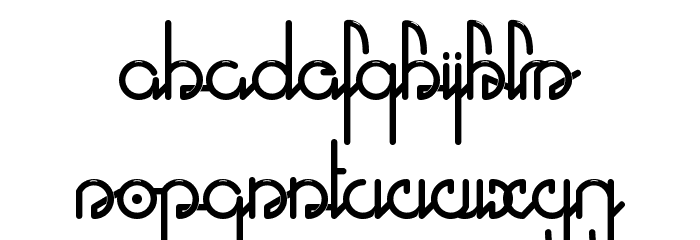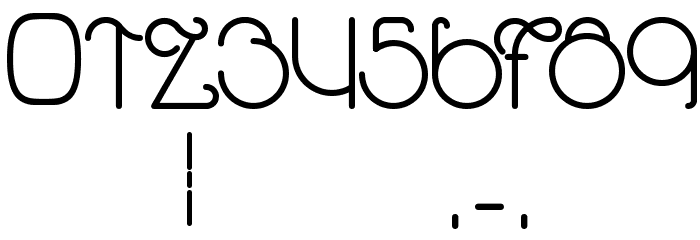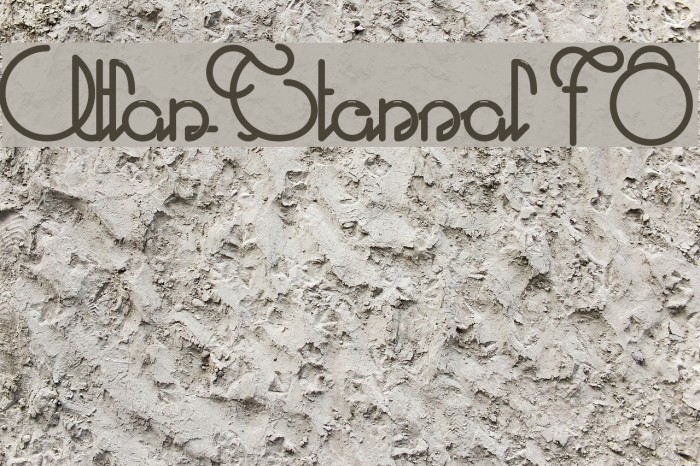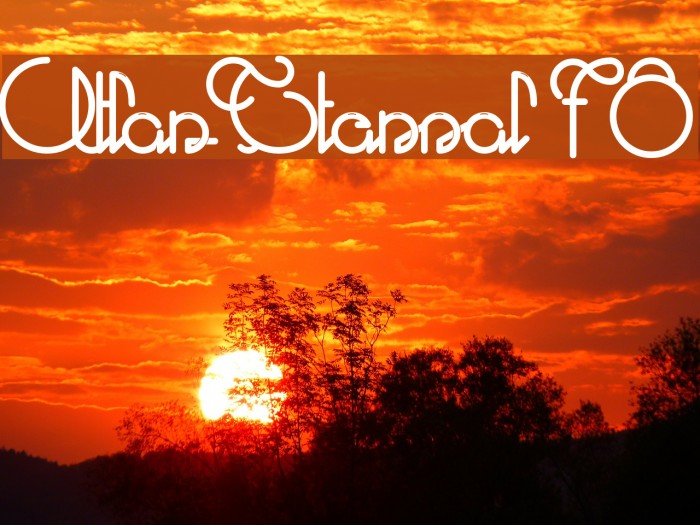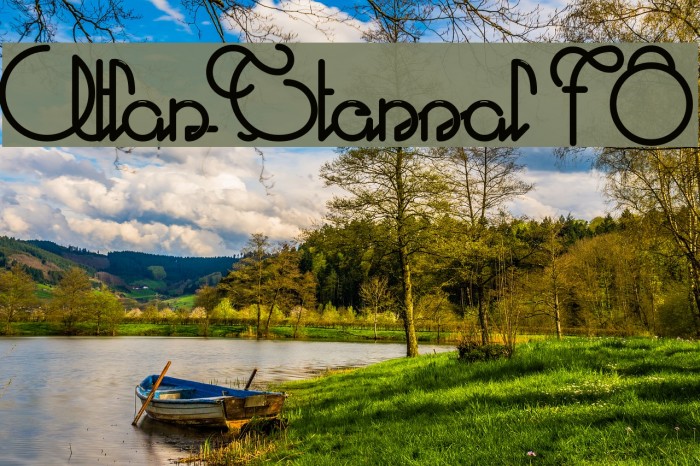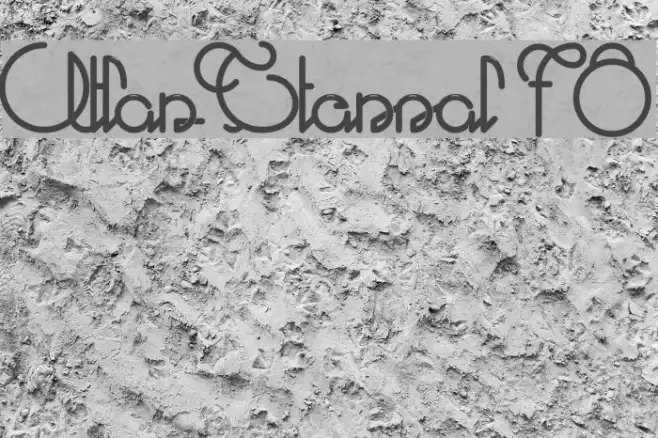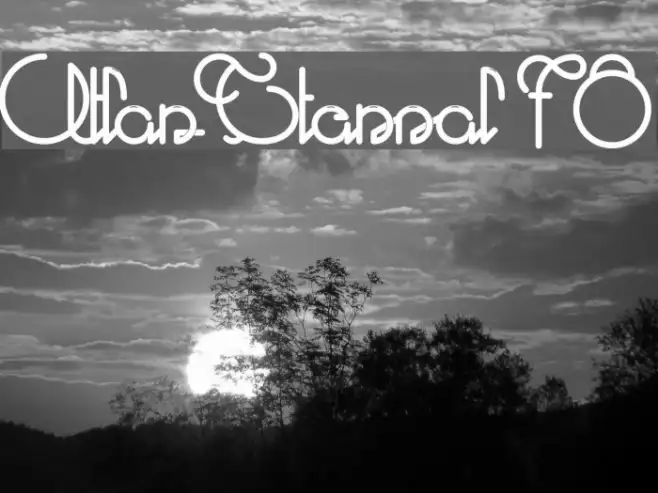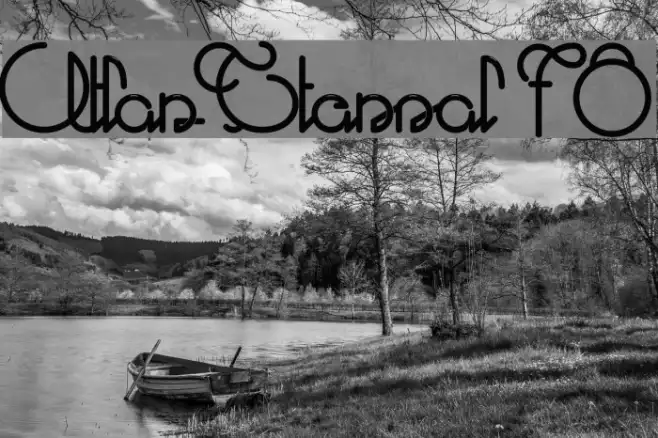
Atlas Eternal 78 Font
This font features an intricate and decorative style with a high level of complexity in its letterforms. The characters are interwoven with loops and curves, creating a sense of elegance and sophistication. The uppercase letters are particularly elaborate, with overlapping strokes that give a sense of movement and fluidity. The lowercase letters maintain a similar style but are slightly more restrained, allowing for readability while still retaining the decorative elements. The numerals and special characters follow the same ornate design, ensuring consistency across the font. This font is best suited for projects that require a touch of luxury and artistic flair.
An intricate and decorative font with elegant loops and curves.
- Proposed Projects: Ideal for luxury branding, wedding invitations, artistic posters, and high-end product packaging.
- Character Spacing: Tight
- Use Case: Logos, Headlines, Artistic projects